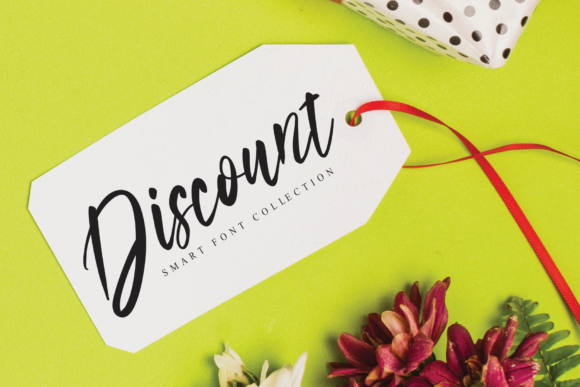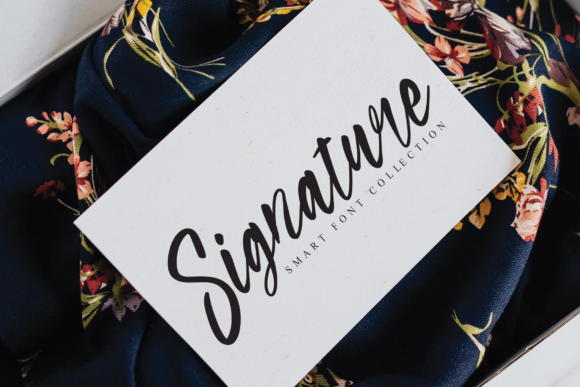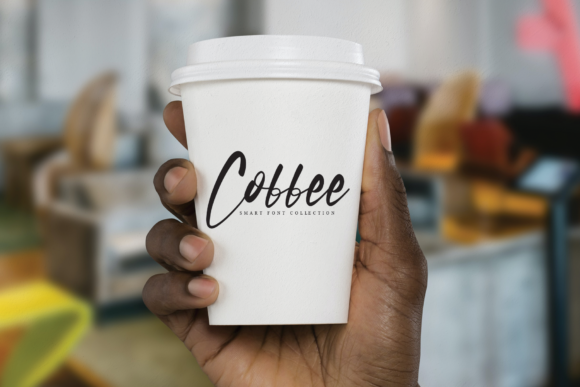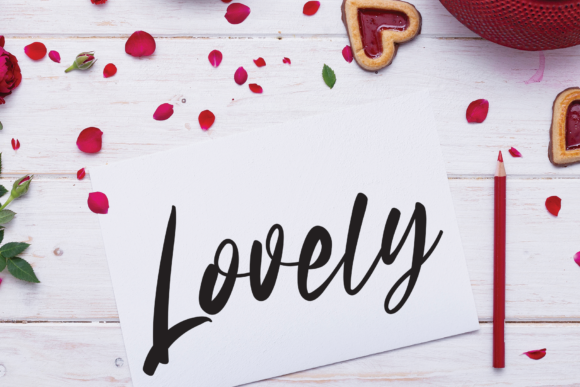
When Words Take on a Personal Touch
Imagine yourself sitting at your desk, surrounded by blank sheets of paper and an endless array of ideas waiting to be brought to life. You take up your pen, and the words begin to flow effortlessly onto the page, infused with a sense of personality and character. This is the magic of handwriting, and now, it’s possible to capture that essence in your digital creations with the Handwriting Font.
This beautiful, handwritten font is designed to add a touch of warmth and friendliness to any project. Whether you’re working on a children’s book, a wedding invitation, or a marketing campaign, the Handwriting Font has the potential to elevate your design and make it truly unique. As a valuable asset to your font library, it’s sure to become a go-to choice for any project that requires a personal touch.
Key Features of Handwriting Font
- Unique Characteristics: Handwriting Font features a unique, cursive style with subtle variations in letterforms, giving it a personal and expressive touch.
Handwriting Font Review
Overall, I’d say the Handwriting Font is a decent addition to any design library. ✨ One of its strengths is its unique, cursive style that adds a touch of personality to any text. It’s perfect for use in titles, headings, or even short paragraphs where a more informal tone is desired. The font also comes in a range of weights, from light to bold, making it versatile enough for use in different design contexts.
- ✨ Unique, cursive style that adds personality to text
- ✨ Range of weights (light to bold) for versatile use
- ✨ Great for use in titles, headings, or short paragraphs
However, I’d like to highlight a few limitations ⚠️. The font can be difficult to read in smaller sizes, and its irregularities can sometimes make it hard to decipher. Additionally, it may not be the best choice for body text, as it can be tiresome to read in large quantities.
- ⚠️ Difficult to read in smaller sizes
- ⚠️ Irregularities can make it hard to decipher
- ⚠️ May not be suitable for body text
Overall, I’d give the Handwriting Font 3.5 out of 5 stars. While it excels in certain situations, its limitations hold it back from being a truly versatile font. Still, it’s a great choice for designers looking to add a touch of personality to their work.